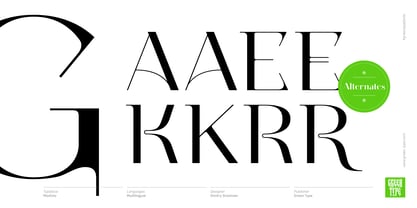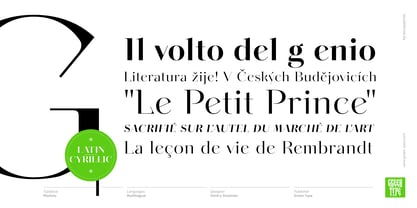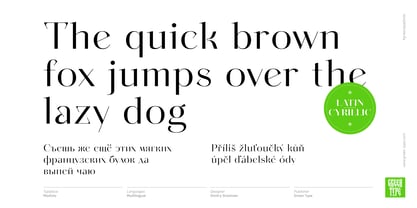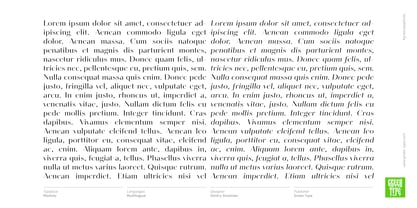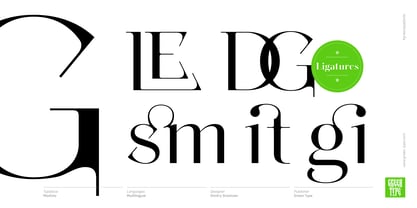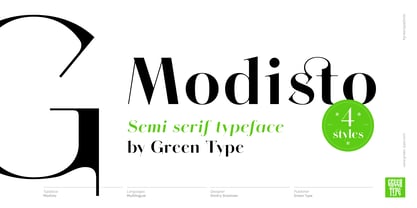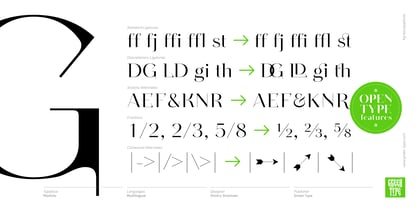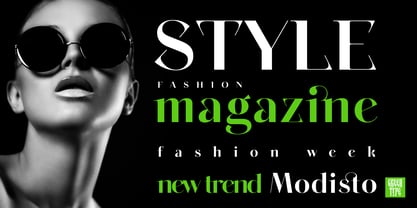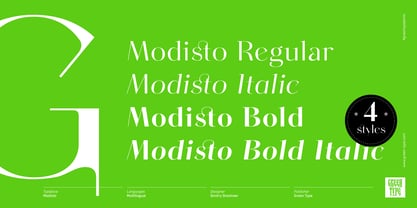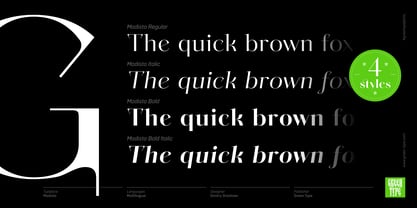
Modisto
by Green Type
The Modisto Font Family was designed by Dmitry Greshnev and published by Green Type. Modisto contains 4 styles and family package options.
Dive into a world of sophistication with Modisto, a lovingly crafted typeface that seamlessly combines classic elegance with a contemporary aesthetic. With its contrasting lines and graceful curves, Modisto creates a captivating visual symphony that adds a special charm to any design. Whether it’s a complex editorial layout, a striking brand identity or an attractive website, Modisto’s flexibility and sophistication will make your project truly unique. Every element of this typeface has been carefully crafted to convey the idea of ​​harmony and grace. From thin semi-serifs to perfectly balanced proportions, it embodies all the charm of modern typography. The variety of styles opens up possibilities for creating memorable and easy-to-read designs. Incredible elegance, clear lines and harmonious proportions give it a classic charm, making it a versatile choice for a wide range of applications.
With advanced OpenType capabilities, including ligatures and alternates, Modisto gives you complete control over the appearance of your text, giving you maximum flexibility in typography. Modisto supports multiple languages, ensuring that your text will be understood by a wide audience around the world. With its elegance and readability, Modisto is ideal for magazines, newspapers and books, allowing you to create a stylish and memorable brand identity that will last for years to come. Clean lines and high contrast ensure optimal readability on screens of all sizes. Add elegance to your product packaging and printed materials. Modisto will make a lasting impression on invitations and greeting cards.
Designers: Dmitry Greshnev
Publisher: Green Type
Foundry: Green Type
Design Owner: Green Type
Modisto